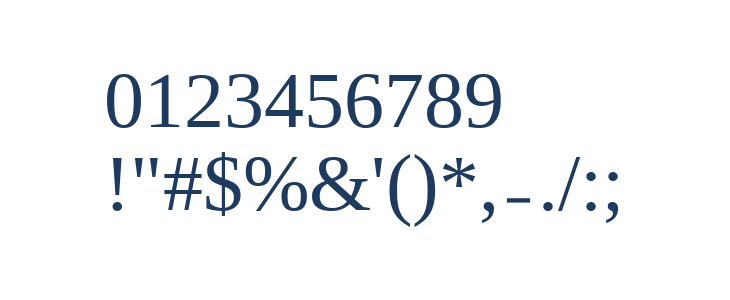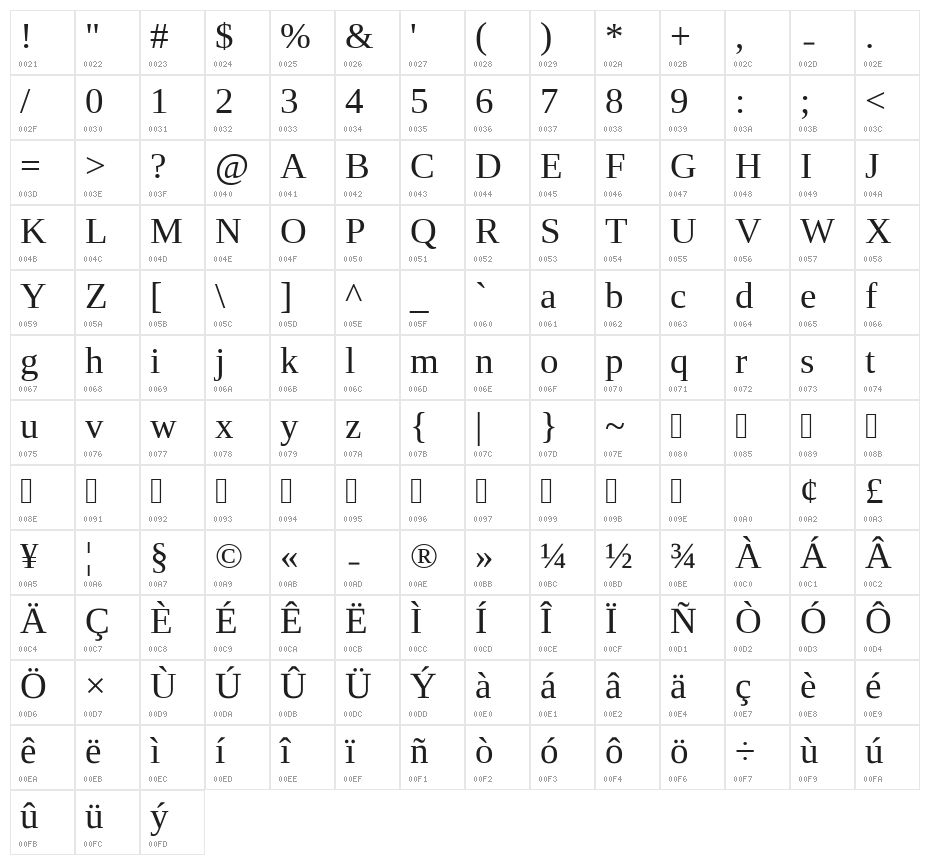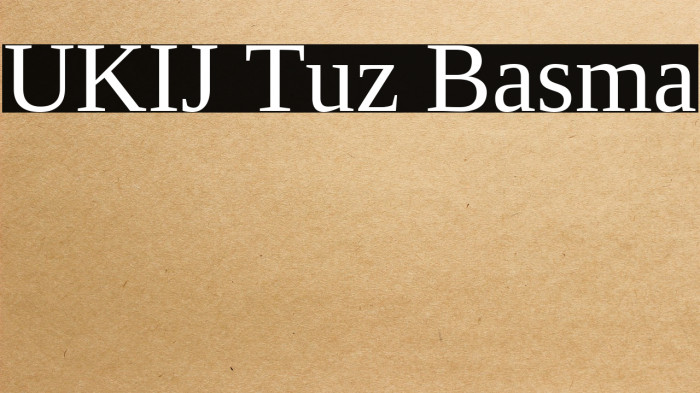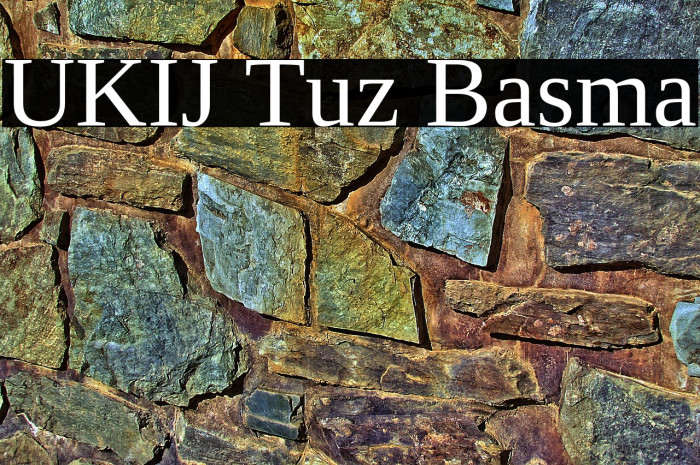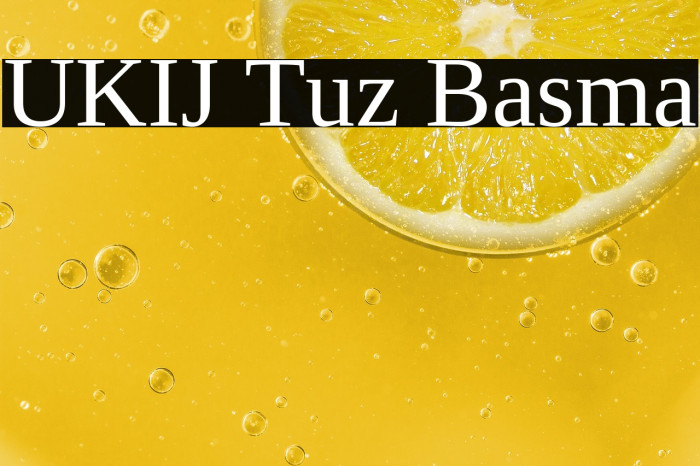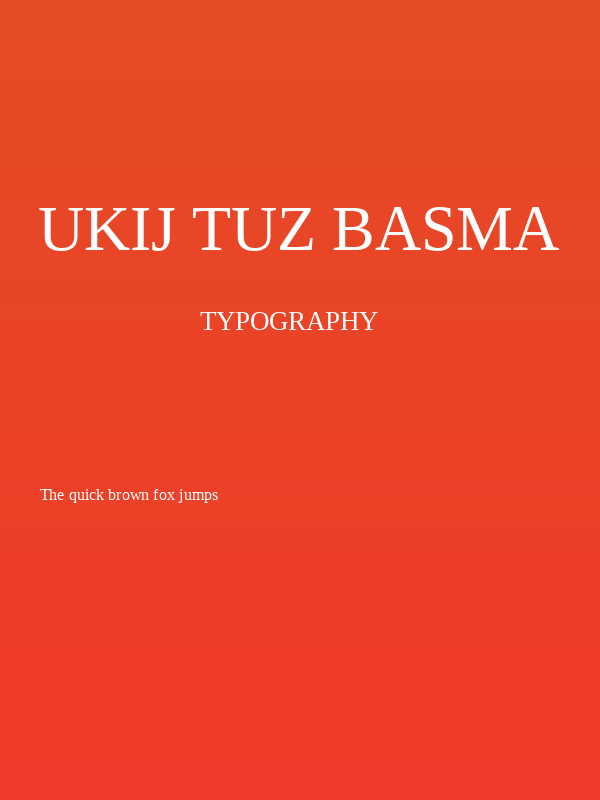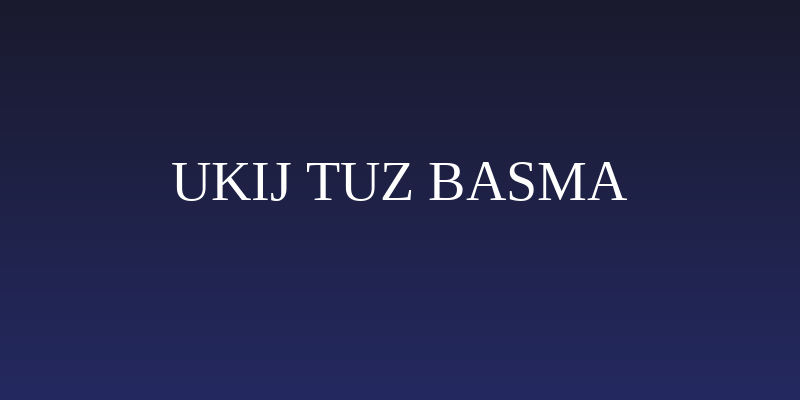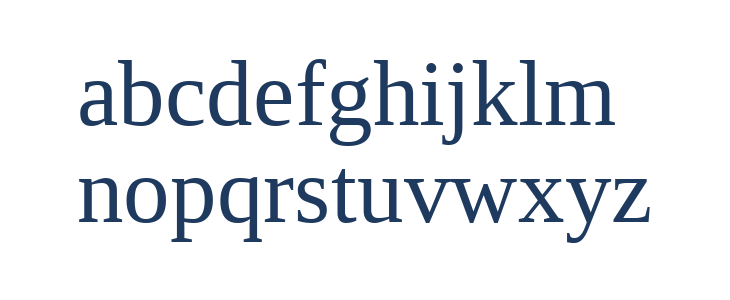
UKIJ Tuz Basma Font
UKIJ Tuz Basma Description
This font exhibits a classic serif style with a balanced and elegant appearance. The uppercase letters are well-proportioned, featuring distinct serifs that add a touch of sophistication. The lowercase letters maintain a consistent design, with smooth curves and clear differentiation between each character. Numbers are bold and easily readable, making them suitable for various applications. The special characters are designed to match the overall aesthetic, ensuring a cohesive look across all text. This font is versatile, offering a timeless appeal that can enhance both traditional and modern designs.